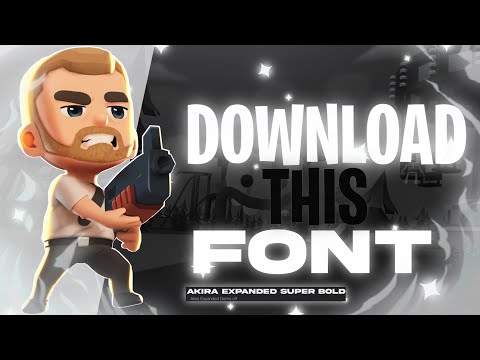
Web with a bold style, make this font suitable as the main text / header text on a website or layout design. Akira is a styled typeface made with the intention of display use. It comes in three different styles that you can mix to get a better look!
Made For Text Display Purposes, Akira Expanded Brings A Modern And Strong Impression To Your Design.
Web akira expanded font free download. Web akira expanded font is designed for text display & sans serif purposes. Web akira expanded font is geometric font family.
With A Bold Style, Make This Font Suitable As The Main Text / Header Text On A.
Akira Expanded Sans Serif Font Expanded Also Includes Alternative Glyphs That Make It Easy For You To Make Customizations.
Web with a bold style, make this font suitable as the main text / header text on a website or layout design. Web it’s the perfect font for making original and outstanding designs. Akira expanded font is a bold impression of your design.